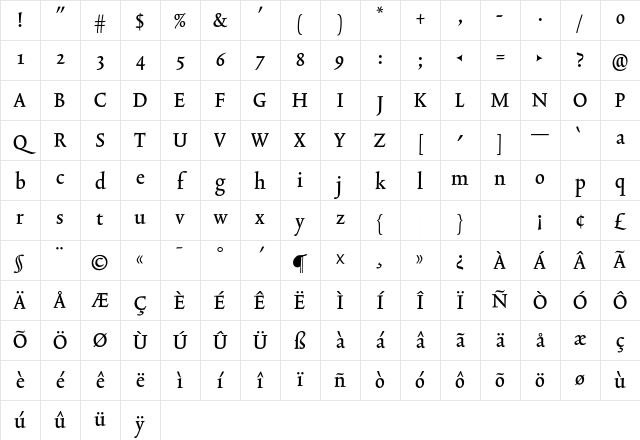
TriniteNo3 MediumCond
Style: MediumCond
TriniteNo3 Family
Complete TriniteNo3 MediumCond glyph index. Displaying only characters natively supported by TriniteNo3 MediumCond font.
Design Context for TriniteNo3
TriniteNo3 is a composed and adaptable typeface that performs quietly and consistently across a wide range of design contexts. Its narrow stance lets it pack a punch even in space-constrained designs.